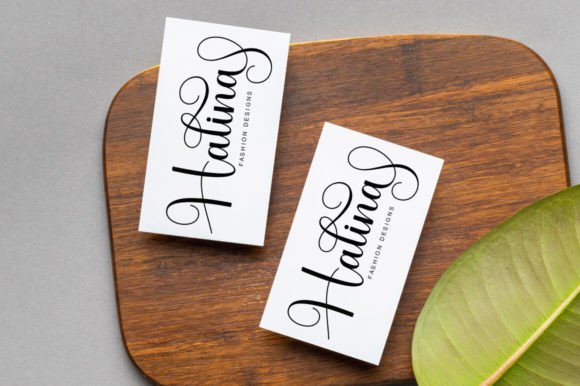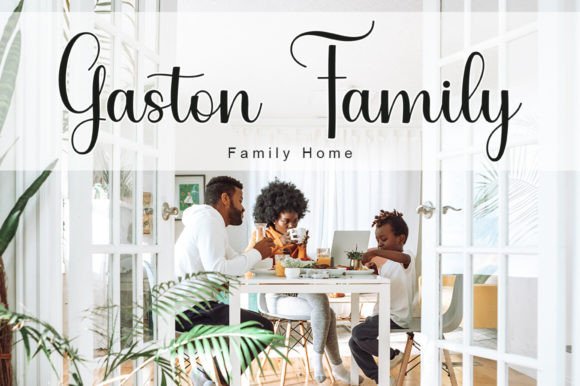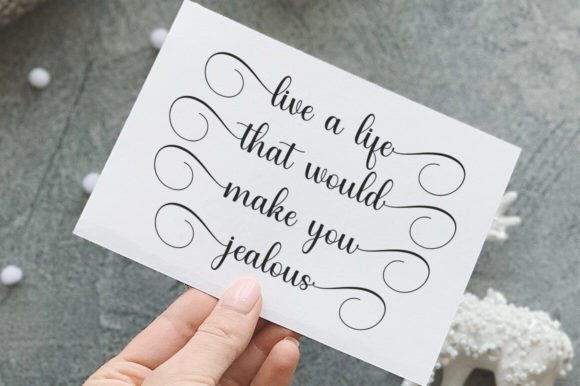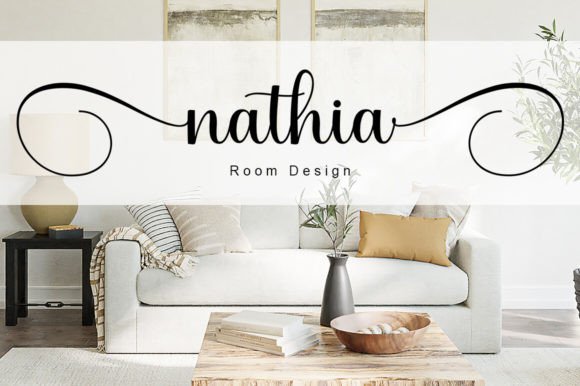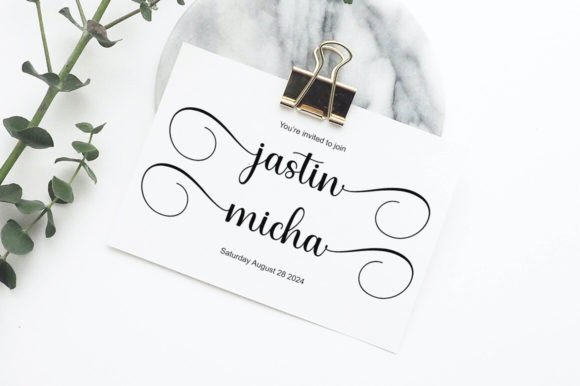
Introduction to Silphia Font
Have you ever stared at a blank page, waiting for the perfect font to bring your creative vision to life? For designers, finding the right font can be a daunting task, especially when it comes to adding a touch of romance and whimsy to a project. That’s where the enchanting Silphia Font comes in – a versatile script font that’s sure to capture the hearts of your audience.
Whether you’re working on a greeting card, a headline, or a design project that requires a high-quality, creative touch, Silphia Font is the perfect design resource. Its wide spectrum of applications makes it a valuable asset for designers looking to add a personal touch to their work. With its PUA encoded glyphs and ligatures, you can easily access the amazing features of this font and take your designs to the next level.
Key Features of Silphia Font
- Transparent background, allowing for easy integration into various design elements
- Available in a single font size, with a resolution of 300 DPI, making it suitable for a variety of design applications
- Unique, elegant script font perfect for adding a touch of sophistication to any design project
- Designed to be versatile, making it suitable for use in logos, typography, and other creative endeavors
Honest Review: Silphia Font
I recently stumbled upon the Silphia Font and I must say, I’m quite impressed. As a designer, I’m always on the lookout for high-quality design resources to elevate my creative projects.
The Silphia Font is a beautifully crafted, elegant script font that’s perfect for adding a touch of sophistication to any design. It’s available for free download, which is a huge plus for designers on a budget.
Here are some of the things that work well with the Silphia Font:
- Its transparent background makes it easy to use on both light and dark backgrounds.
- The font is highly customizable, making it perfect for designers who want to add a personal touch to their projects.
- The Silphia Font is suitable for a wide range of creative projects, from wedding invitations to branding materials.
However, I do have a few limitations in mind:
- The font is not suitable for very small text sizes, as it can become difficult to read.
- The font family is relatively small, with only a few weights and styles available.
Overall, I’m quite impressed with the Silphia Font. It’s a high-quality design resource that’s perfect for designers who want to add a touch of elegance to their creative projects. ⭐️⭐️⭐️⭐️⭐️ (5/5 stars)
To get the most out of Silphia Font, use it with a transparent background to create a clean and modern design. You can also experiment with different font sizes and styles to add depth and visual interest to your creative project.
Silphia Font is ideal for a variety of design projects, including logos, business cards, and social media graphics. Its high-quality design and transparent background make it perfect for creating eye-catching visuals that stand out from the crowd.